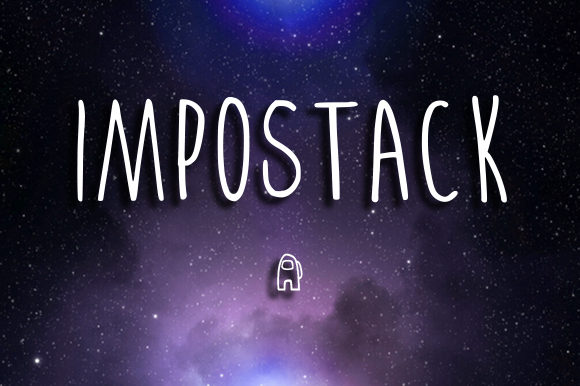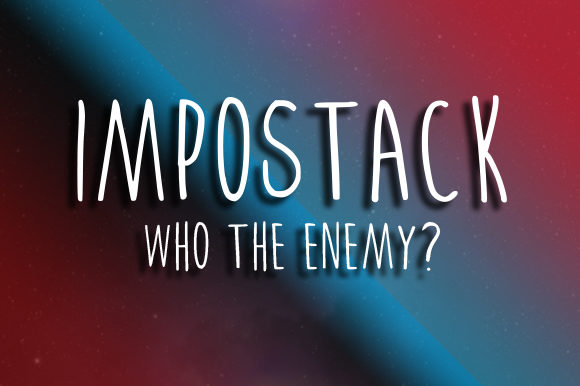
Impostack Font
About Impostack Font
Impostack is a sweet and friendly handwritten font. Its natural and unique style makes it incredibly fitting to a large pool of designs.